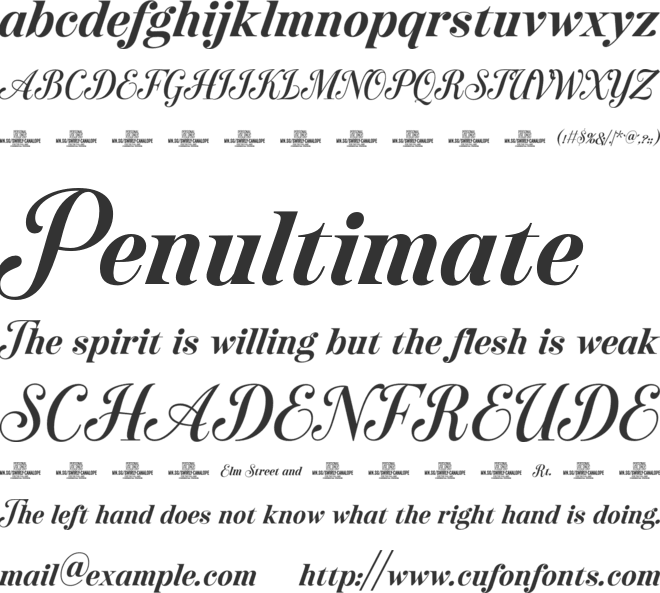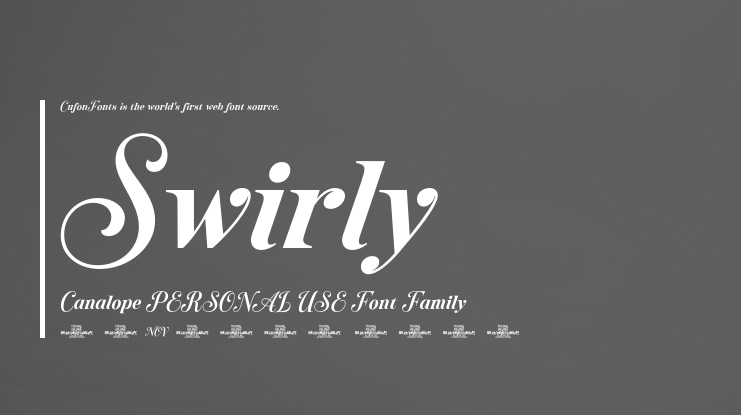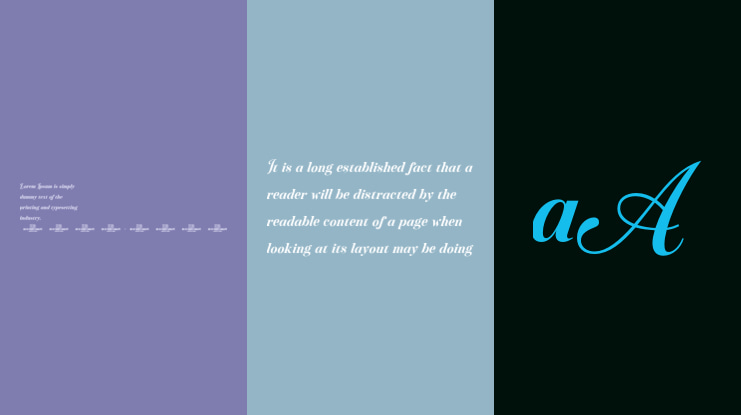
Swirly Canalope PERSONAL USE Font
NOTE: This font is for PERSONAL USE ONLY!To purchase a commercial license, visit:https://www.mansgreback.com/product/swirly-canalopeSwirly Canalope is a bold script with elegant twists and a distinctly vintage character. The design features confident strokes, punctuated by decorative curls and tasteful contrast, resulting in a look that balances strength with flourish. Its uppercase set sways with theatrical curves and grand entry strokes, perfect for ornamental purposes, while the lowercase letters stay grounded and legible, keeping the text cohesive. With a touch of old-fashioned signage and classic editorial titling, Swirly Canalope fits comfortably in both retro and contemporary creative settings.For questions, please visit https://mansgreback.com/faq